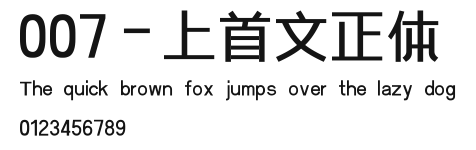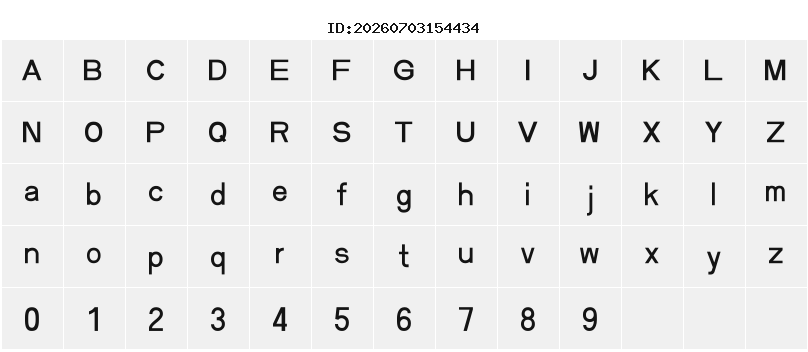
007-上首文正体 Preview
• Font Name: 007-上首文正体
• Full Font Name: 007-上首文正体
About 007-上首文正体.ttf
007-上首文正体.ttf is a modern, elegant sans-serif font designed for ultimate readability and visual harmony. Perfect for branding, headlines, web design, and print materials.